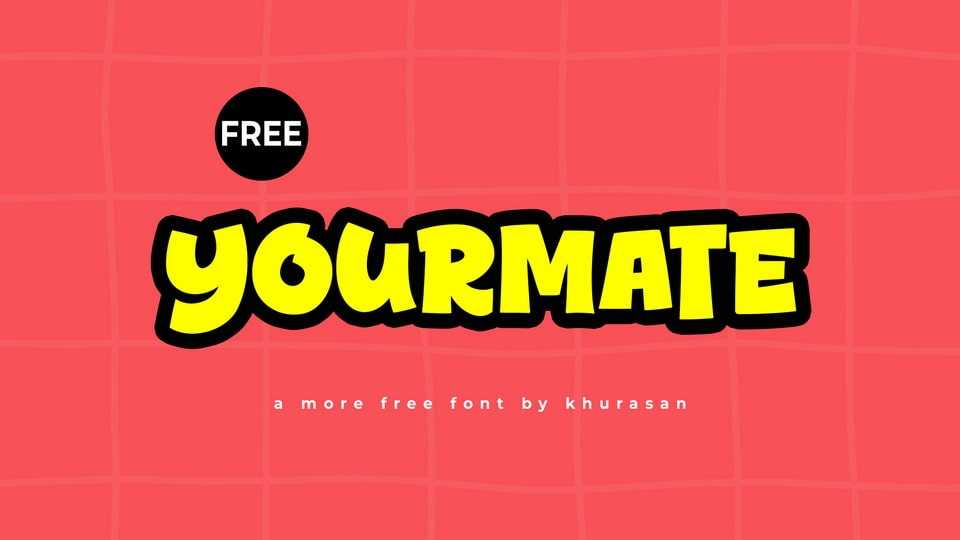
Download Yourmate font, a bold and playful cartoon-style typeface that bursts with personality. Its thick, bubbly letterforms and chunky black outline create a striking, high-energy look that feels both friendly and fun.